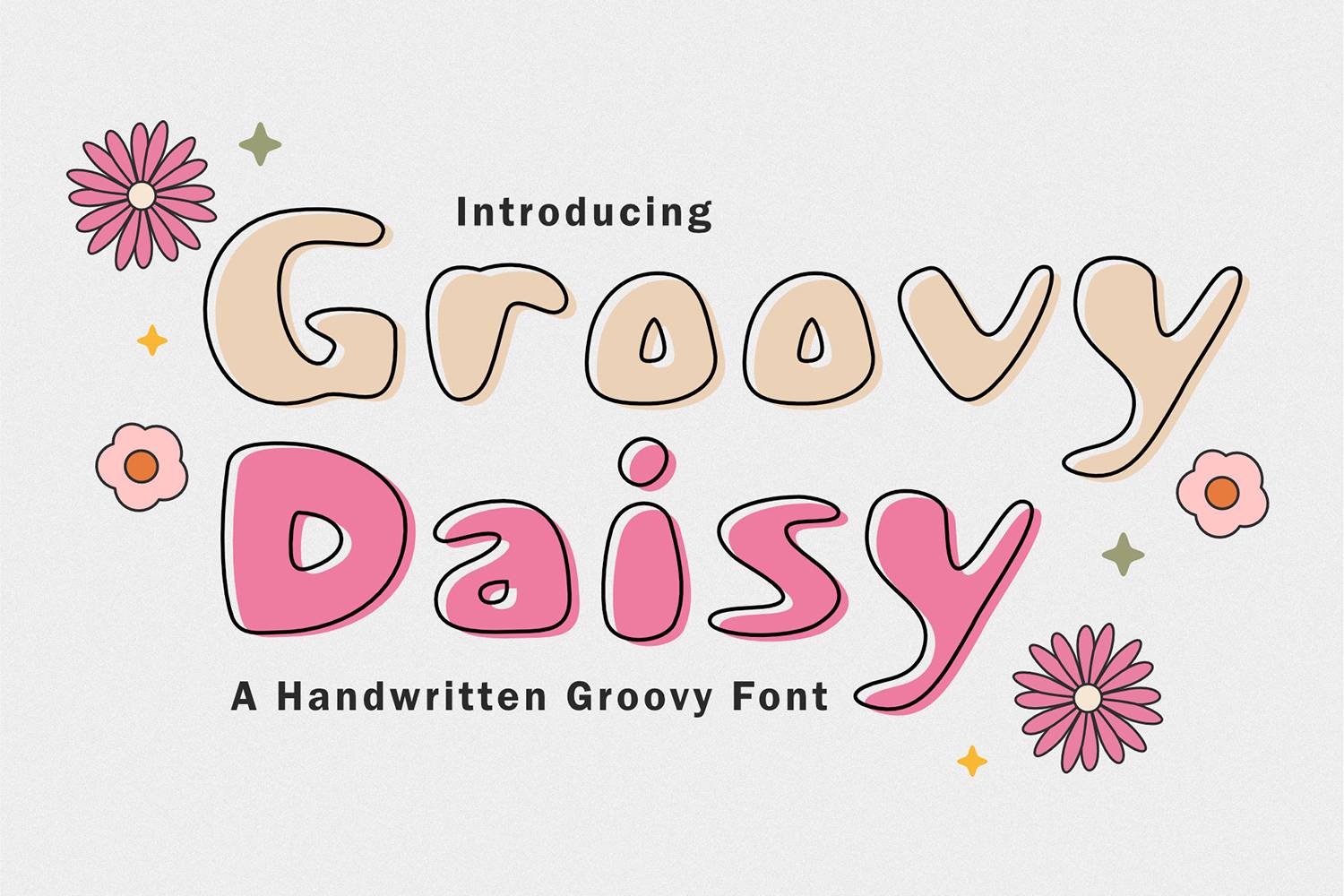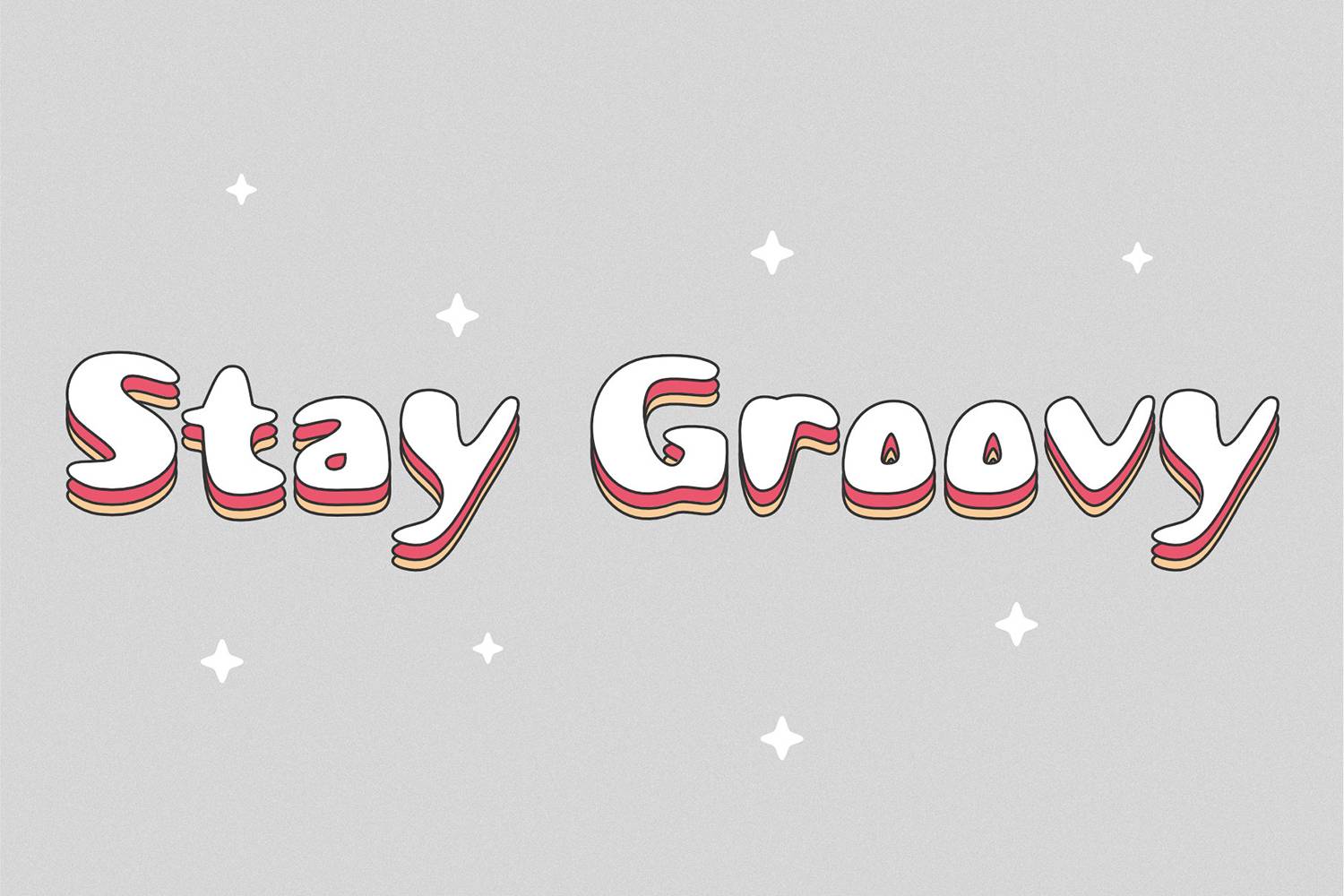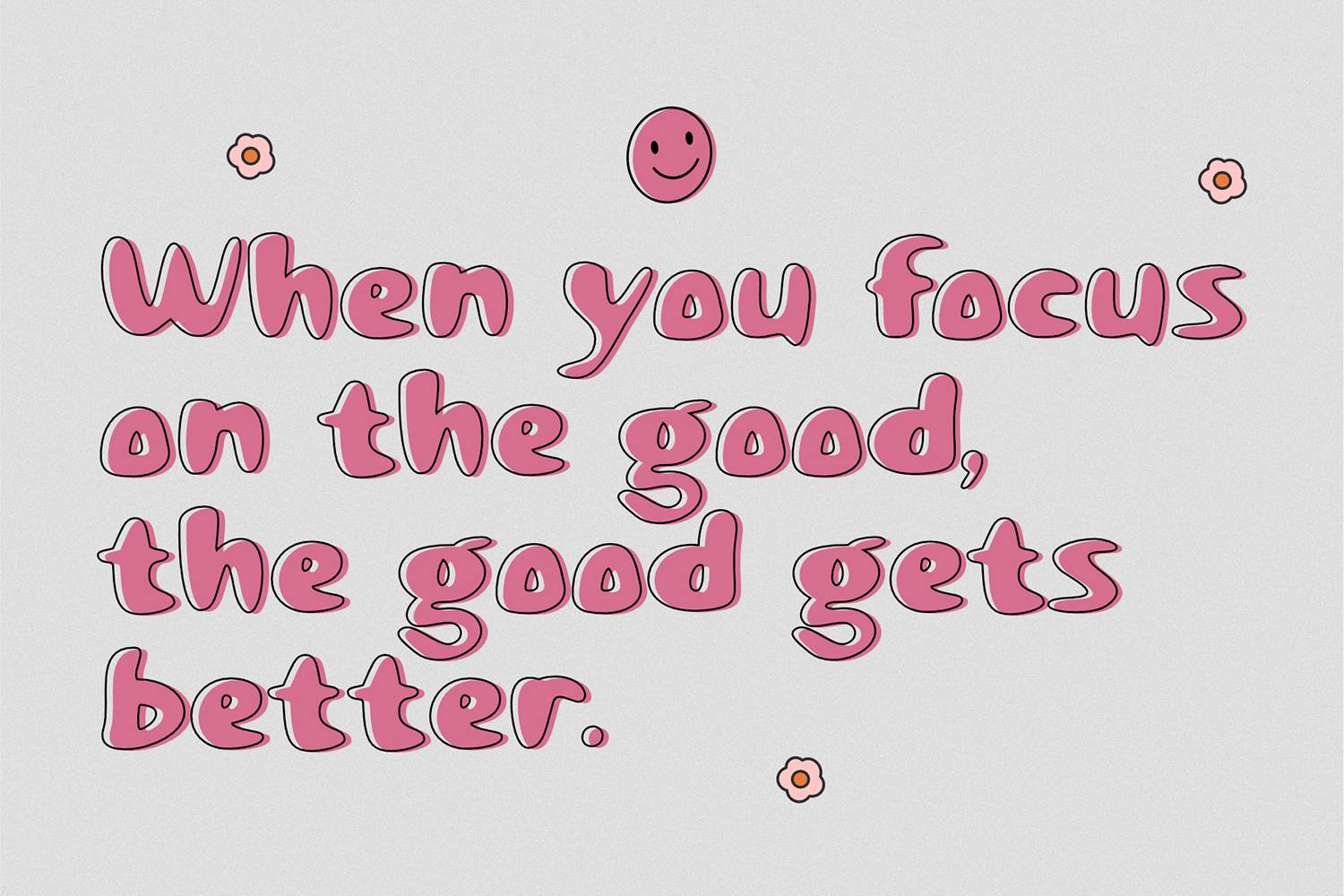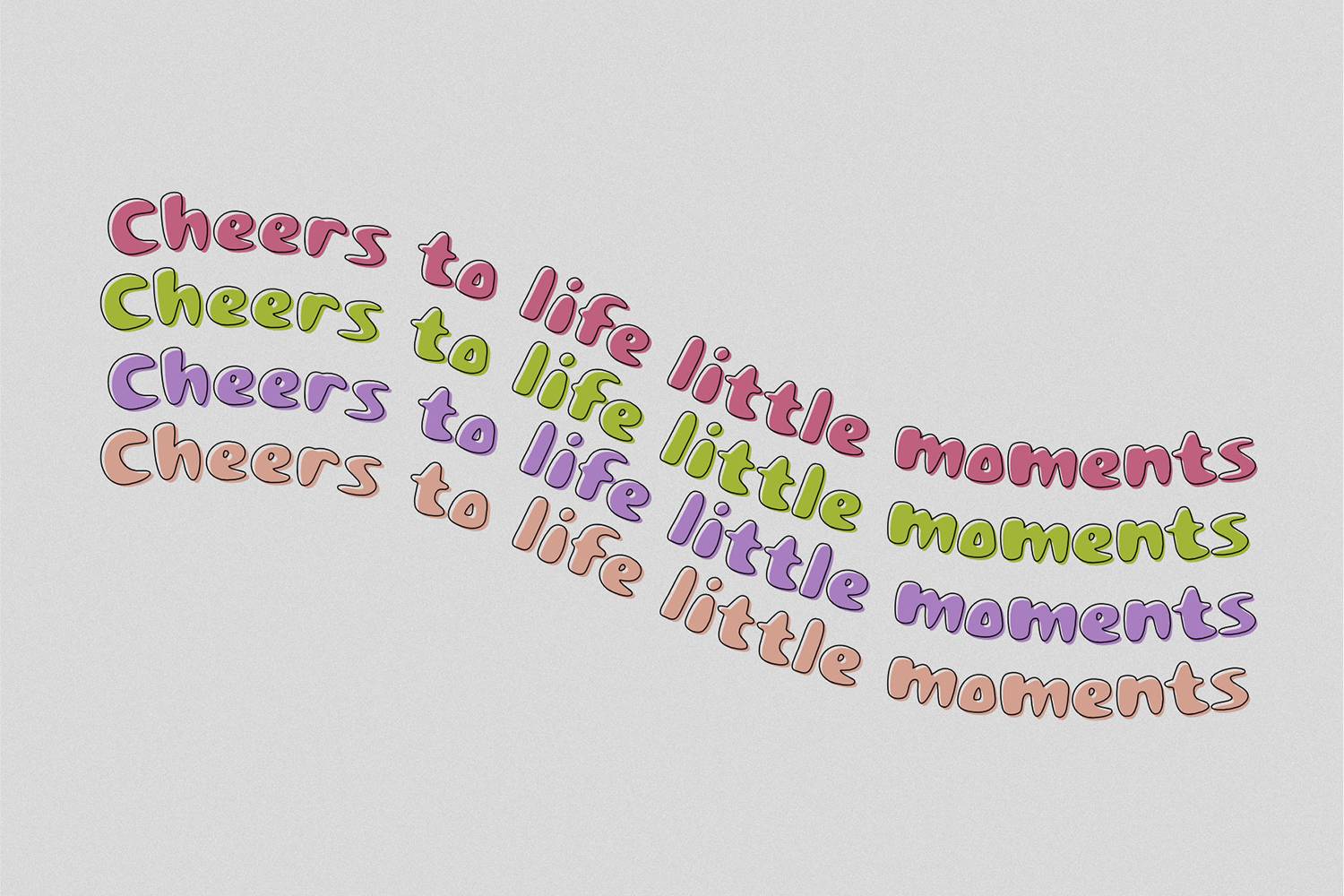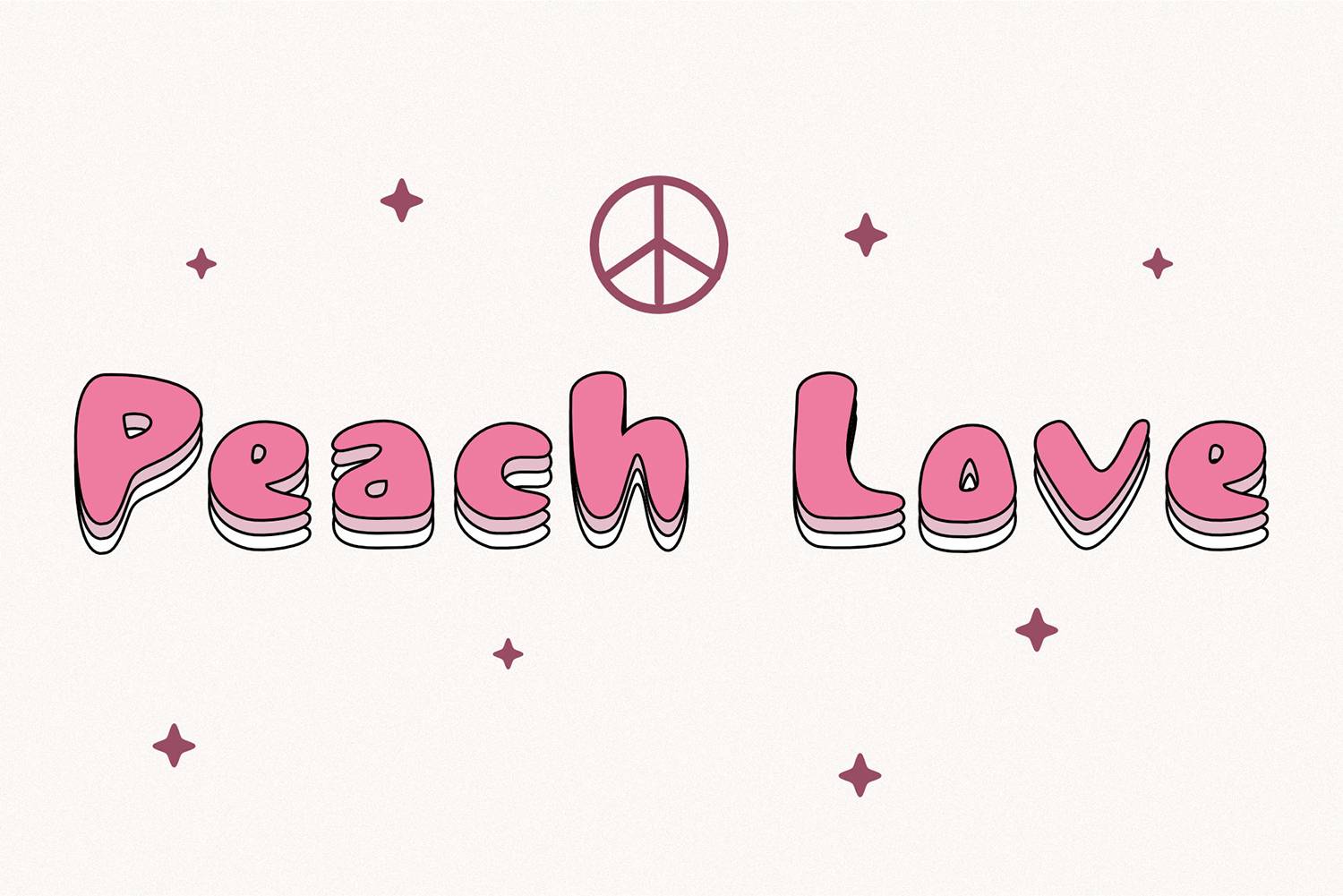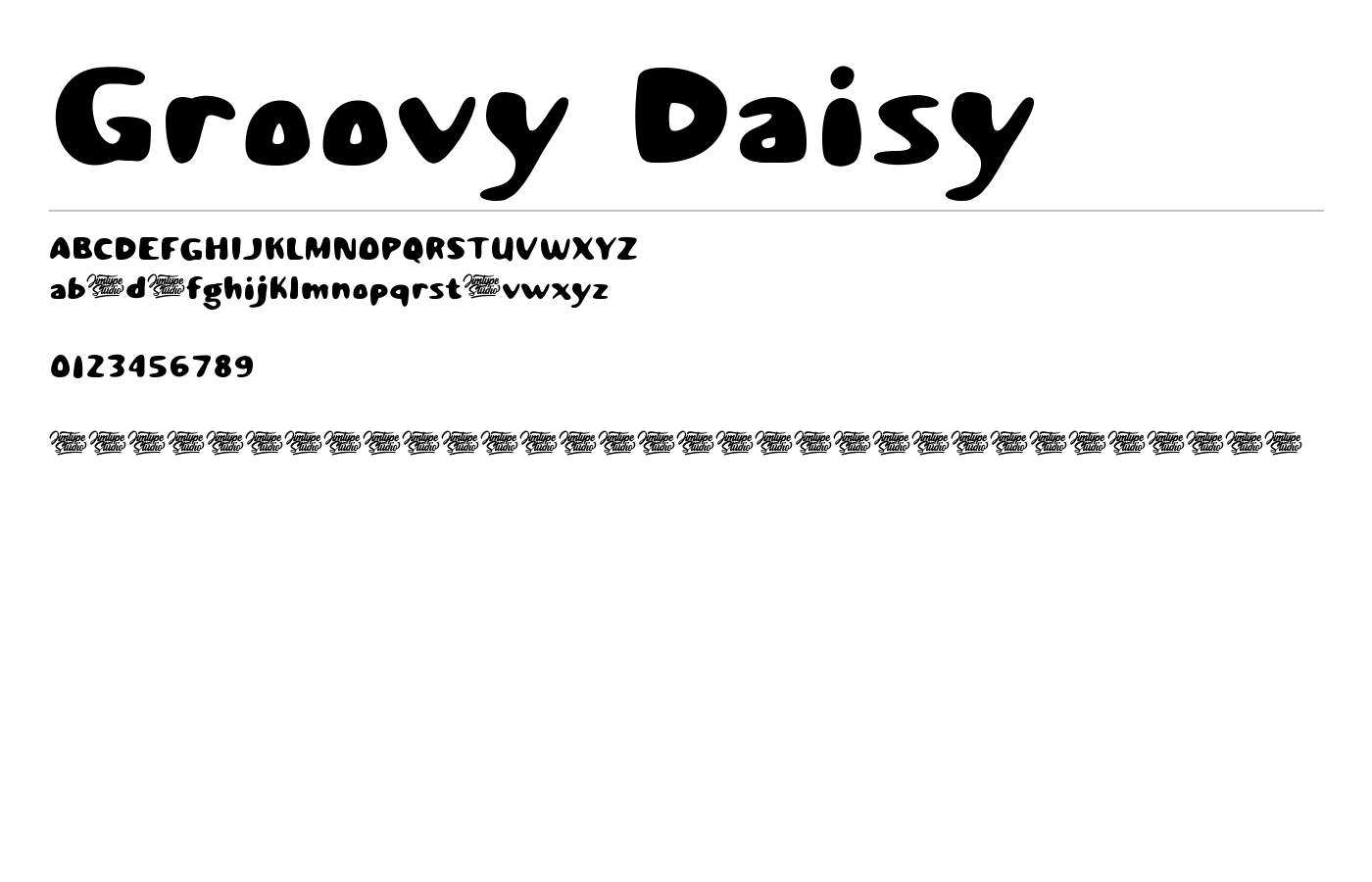
Groovy Daisy is a playful and bold handwritten font characterized by its rounded, chunky letterforms and smooth curves, giving it a fun and approachable feel. This font works best for casual branding, children's books, posters, and any design that benefits from a friendly and whimsical touch. Its distinct, lively style makes it ideal for eye-catching headlines and creative projects that want to convey warmth and cheerfulness.
Groovy Daisy Font
About Groovy Daisy Font
| Font family | Groovy Daisy Font |
| Release date | 2022-06-19 |
| Designer | Jimtype Studio |